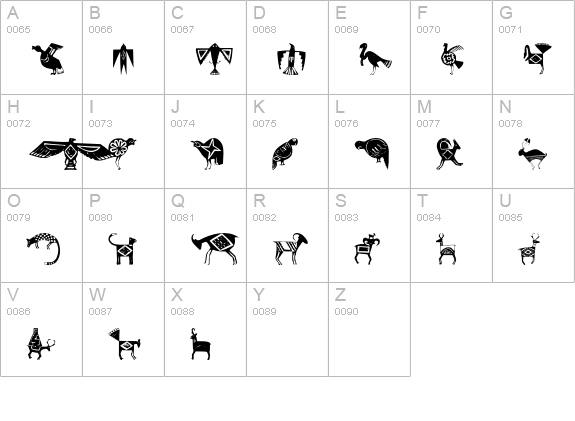
MimbresOne Font Details
MimbresOne font is a stunning display typeface that exudes elegance and sophistication. With its intricate details and artistic flair, this font is perfect for creating eye-catching headlines, posters, and invitations. The MimbresOne font features a unique blend of modern and classic elements, making it a versatile choice for a wide range of design projects. And the best part? MimbresOne font is completely free to download at FontsMarket.com! Whether you're a graphic designer, artist, or hobbyist, you can easily access this beautiful font to elevate your creative projects. Don't miss out on the opportunity to add MimbresOne font to your font collection today and unleash your creativity with this exquisite typeface.